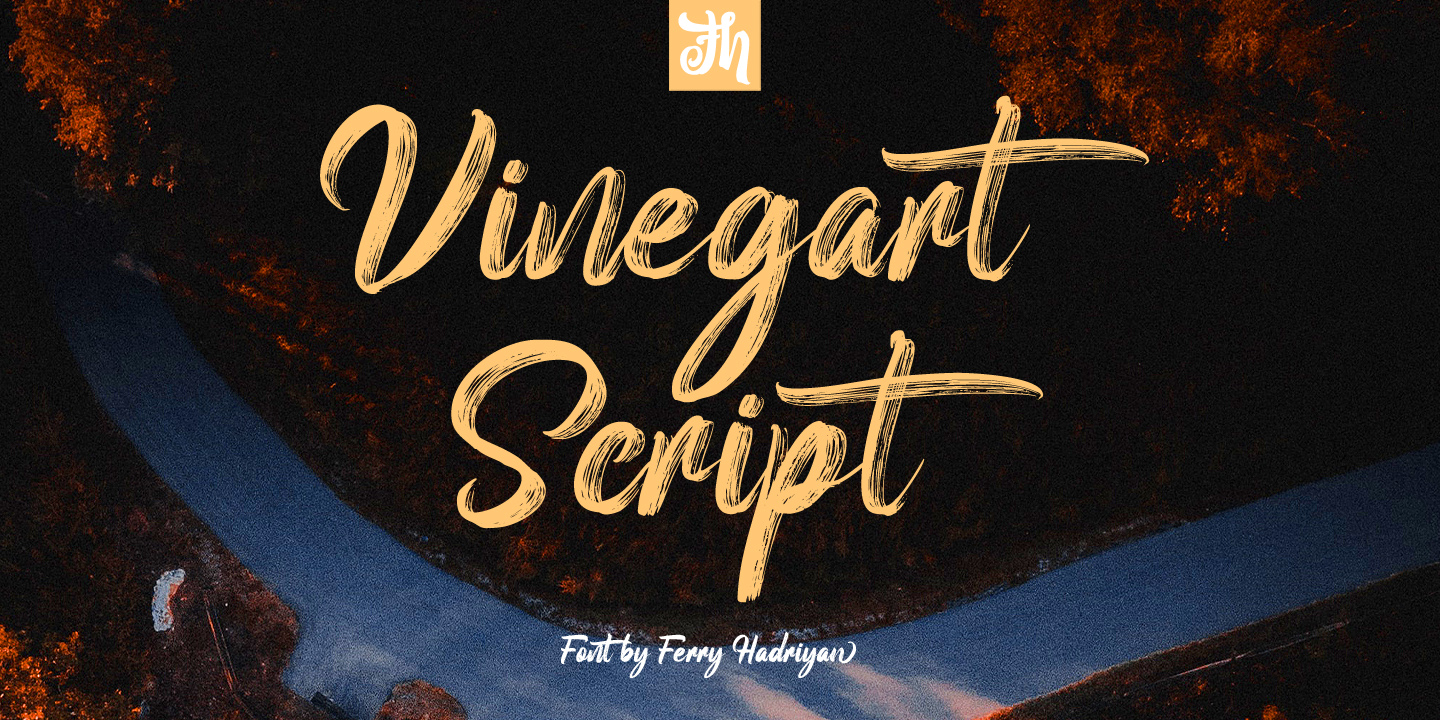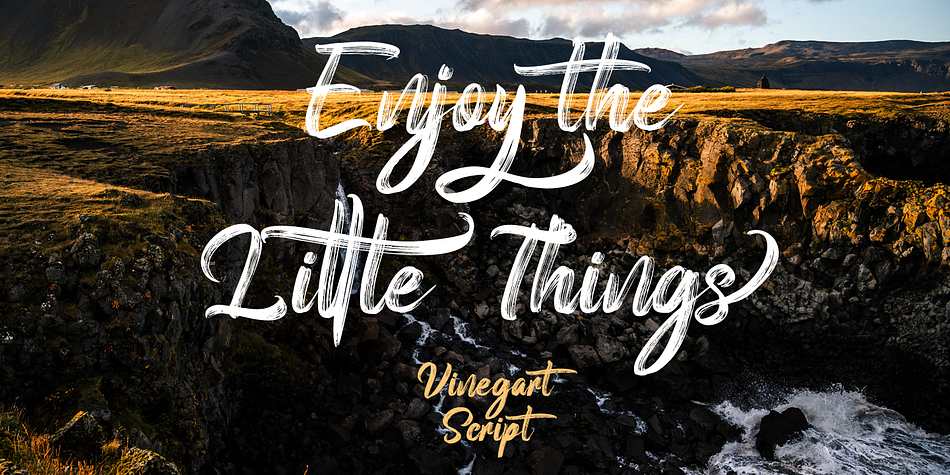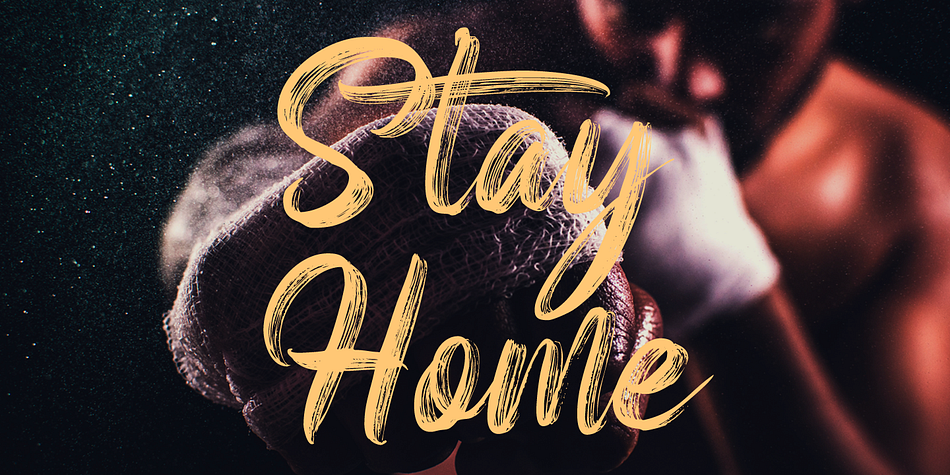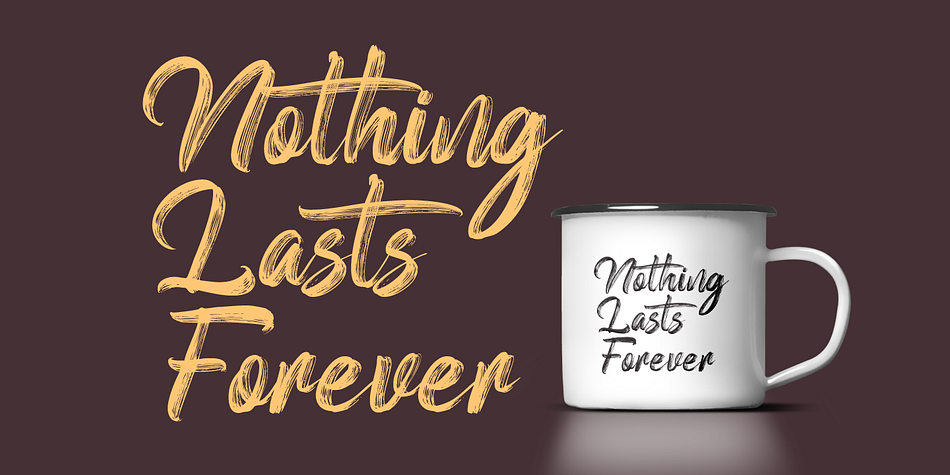
Designed by Ferry Hadriyan, Vinegart is a hand drawn and script font published by feydesign.
Vinegart - Handwritten Font
Vinegart is Script Font with Handlettering Dry Brush Style, with opentype feature include of the font. Suitable for design, element design, wedding, event, t-shirt, logo, badges, sticker, and awesome work, etc…
- All Standard Character, Symbol, Multilanguage, Ligature, Stylistic Set, and Swashes.
- Unique style fonts